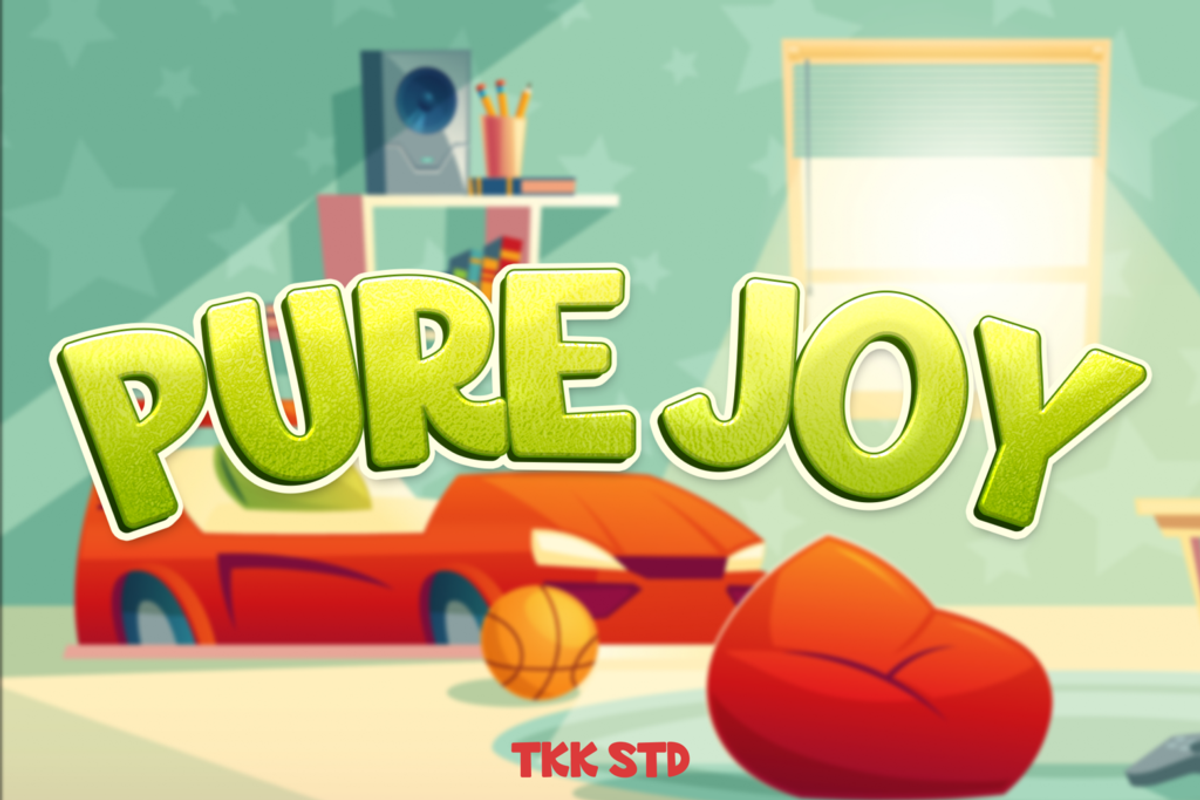
Pure Joy - Kids Font Free Download
Pure Joy Kids Font Free Download
Pure Joy Kids Font Free Download is a fun, bubbly, and friendly typeface designed especially for children’s projects. With its playful letterforms and rounded edges, this font is perfect for children’s books, educational materials, toy branding, party invitations, and more.
Its energetic and lighthearted style makes it ideal for anything that requires a youthful, cheerful vibe. Whether you’re creating for a kid-friendly brand or designing an event poster for young audiences, Pure Joy Kids Font brings a delightful, easy-to-read feel to your design.